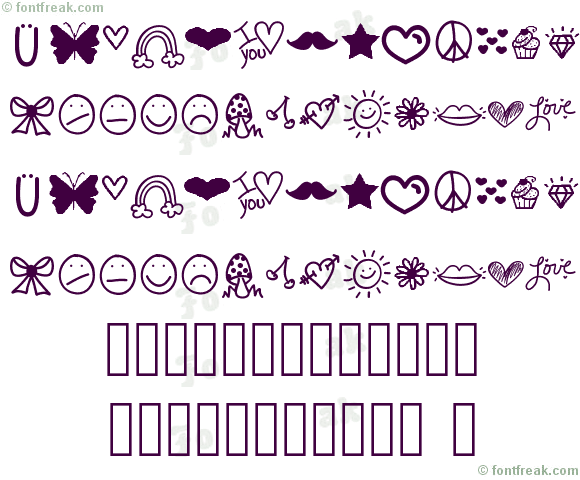
VBdings
VBdings by Vanessa Bays is a delightful dingbat font that adds a playful touch to any design project. This font features a collection of whimsical symbols, including cheerful icons like sunshines, butterflies, hearts, and bows. The visual characteristics of VBdings are characterized by a uniform stroke weight that maintains consistency across the various icons, making them easy to integrate into different design contexts. The lack of intricate decorative elements allows for versatility while still ensuring that each icon possesses a charming simplicity that appeals to a broad audience.
VBdings is ideal for a variety of creative applications. It shines in wedding invitations, where its lighthearted symbols can enhance the joyful theme of the occasion. Graphic designers can use it in greeting cards, adding a personal and engaging touch to their messages. Small business owners may find VBdings particularly effective for marketing materials, such as flyers and social media graphics, as the playful icons can draw attention and create a friendly brand image. Additionally, content creators can utilize VBdings in blog posts or newsletters to break up text and add visual interest, making their content more engaging for readers.
The target audience for this font includes graphic designers, small business owners, and content creators looking to infuse their work with a sense of whimsy and fun. The versatility of VBdings makes it an excellent choice for anyone aiming to evoke a lighthearted atmosphere in their designs.
What sets the VBdings font apart is its unique ability to blend simplicity with charm. The playful nature of the icons invites creativity while remaining accessible to users of all skill levels. The VBdings font free download offers an opportunity for designers and creators to enrich their projects with delightful visuals, making it a must-have in any creative toolkit.